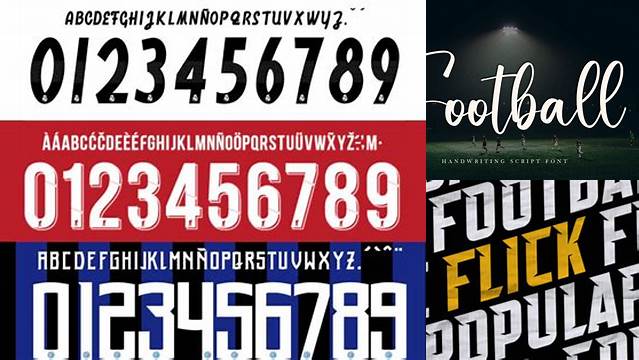
Are you looking to inject some dynamic energy into your sports-themed designs? Football fonts can be your secret weapon! These specialized typefaces capture the spirit of the game, bringing the thrill of the stadium to your posters, banners, websites, and more. Finding the perfect football font free download TTF can be a game-changer, but navigating the world of font licenses and quality can be tricky. Let's dive into everything you need to know to score the ideal font for your project.
Why Use Football Fonts?
Before we get into the nitty-gritty of finding football fonts, let's talk about why they're so effective. These fonts aren't just your average typeface; they're designed with the gridiron in mind. Common characteristics include bold, blocky letterforms that convey power and strength. You'll often see slanted or italicized versions that suggest speed and motion. Many football fonts incorporate elements like stripes, stars, or even subtle references to the shape of a football itself. The use of a football font instantly signals to your audience that your design is related to the sport, creating an immediate connection and boosting engagement. For sports teams, using a consistent football font across all their branding materials—from jerseys to social media graphics—can help build a strong and recognizable identity. It's all about creating a cohesive visual language that resonates with fans and players alike. Imagine a high school football team using a generic, elegant font on their promotional materials. It just wouldn't feel right, would it? A football font, on the other hand, immediately conveys the team's strength, determination, and competitive spirit. So, if you're aiming to create a design that captures the essence of football, choosing the right football font is a crucial first step. It's about more than just aesthetics; it's about communicating the values and emotions associated with the game.
Factors to Consider When Choosing a Football Font
Okay, so you've found a few potential football fonts. Now what? How do you choose the right one for your project? Here are some key factors to keep in mind:
- Legibility: First and foremost, your font needs to be readable. Even if it looks super cool and sporty, if people can't easily decipher the letters, it's not going to be effective. Consider the size and context in which the font will be used. A font that looks great on a large poster might be illegible on a smaller website banner.
- Style: Does the font match the overall tone and style of your design? Is it modern and sleek, or more vintage and rugged? Think about the specific message you're trying to convey and choose a font that aligns with that message. A whimsical, cartoonish font probably isn't the best choice for a serious sports documentary.
- Weight and Width: The weight (thickness) and width of the font can significantly impact its visual impact. A heavier font will convey more power and strength, while a lighter font might feel more agile and dynamic. Similarly, a wider font will take up more space and command attention, while a narrower font can create a sense of speed and efficiency.
- License: We've mentioned this before, but it's worth repeating: always check the font license! Make sure you're allowed to use the font for your intended purpose, whether it's for personal use, commercial projects, or both. Pay attention to any restrictions on modification or distribution.
- File Format: While we're focusing on TTF (TrueType Font) files, some fonts may also be available in OTF (OpenType Font) format. Both TTF and OTF are widely compatible, but OTF fonts often offer more advanced features like ligatures and alternate characters. Choose the format that best suits your needs and software capabilities.
Choosing the perfect football font requires careful consideration of these factors. Take your time, experiment with different options, and don't be afraid to ask for feedback from others. With a little effort, you'll find a font that truly elevates your design and captures the spirit of the game.
Finding the perfect football font free download TTF can be a game-changer for your sports-related designs. By understanding the characteristics of football fonts, knowing where to find them, and considering the factors that influence their effectiveness, you can score big with your typography. So, go ahead and explore the world of football fonts, experiment with different options, and unleash your creative potential. With the right font, you can create visuals that truly capture the spirit of the game and resonate with your audience. Remember to always respect font licenses and download from reputable sources to ensure a smooth and worry-free design experience. Now, get out there and create some winning designs!